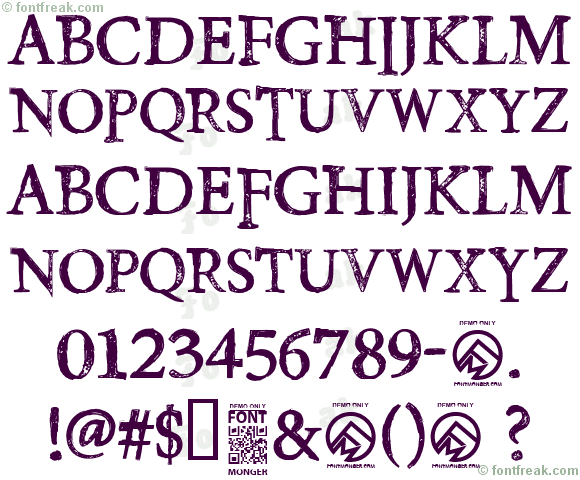
PoisonHope-Regular
Poison Hope Regular
About PoisonHope-Regular
PoisonHope-Regular is a distinctive display font designed by Chris Vile, categorized as a decorative typeface. This font features a unique blend of boldness and intricacy, making it a striking choice for various design projects. Its visual characteristics include a medium stroke weight with an uneven texture that evokes a sense of handcrafted authenticity. The letterforms exhibit a slightly distressed appearance, adding an organic feel that sets it apart from more conventional typefaces. The spacing is well-balanced, ensuring legibility while allowing the font’s personality to shine through.
This font is particularly well-suited for creative applications such as movie posters, where its dramatic flair can capture attention. It’s also a great choice for album covers, giving a unique edge to music branding. Wedding invitations can benefit from its whimsical charm, adding an element of surprise and interest to traditional designs. Additionally, restaurant menus can leverage PoisonHope-Regular to create an inviting and memorable dining experience, especially for establishments focusing on a rustic or artisanal theme.
The target audience for PoisonHope-Regular includes graphic designers seeking to inject personality into their projects, small business owners looking to differentiate their branding, and content creators who want to add a unique flair to their visual content. The versatility of this font allows it to resonate well with a variety of creative professionals.
In conclusion, PoisonHope-Regular stands out due to its captivating visual style and versatility. The font’s blend of texture and character makes it an excellent choice for anyone looking to make a bold statement. For those interested in enhancing their designs, a PoisonHope-Regular font free download is available, providing an opportunity to incorporate this exceptional typeface into their creative toolkit.